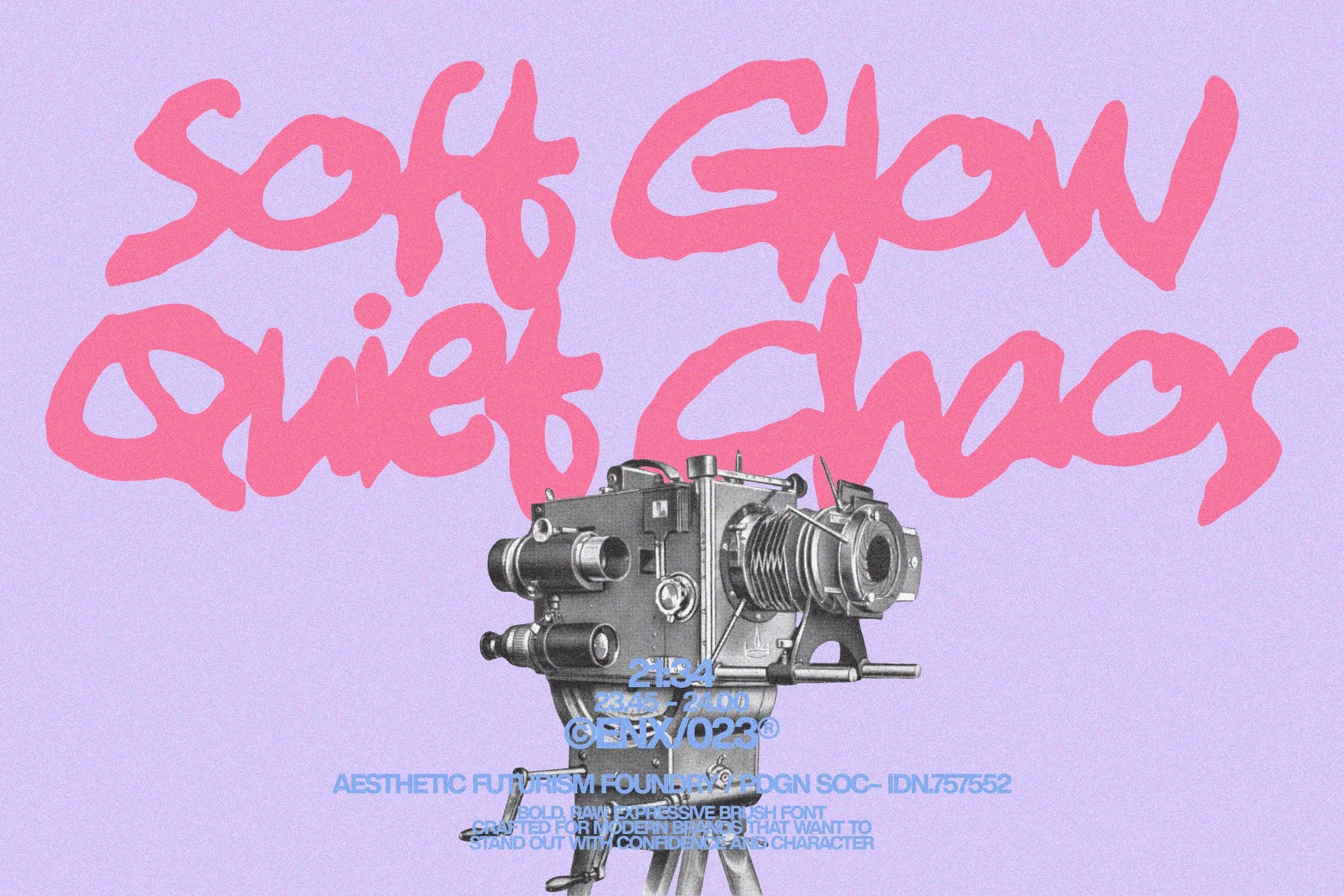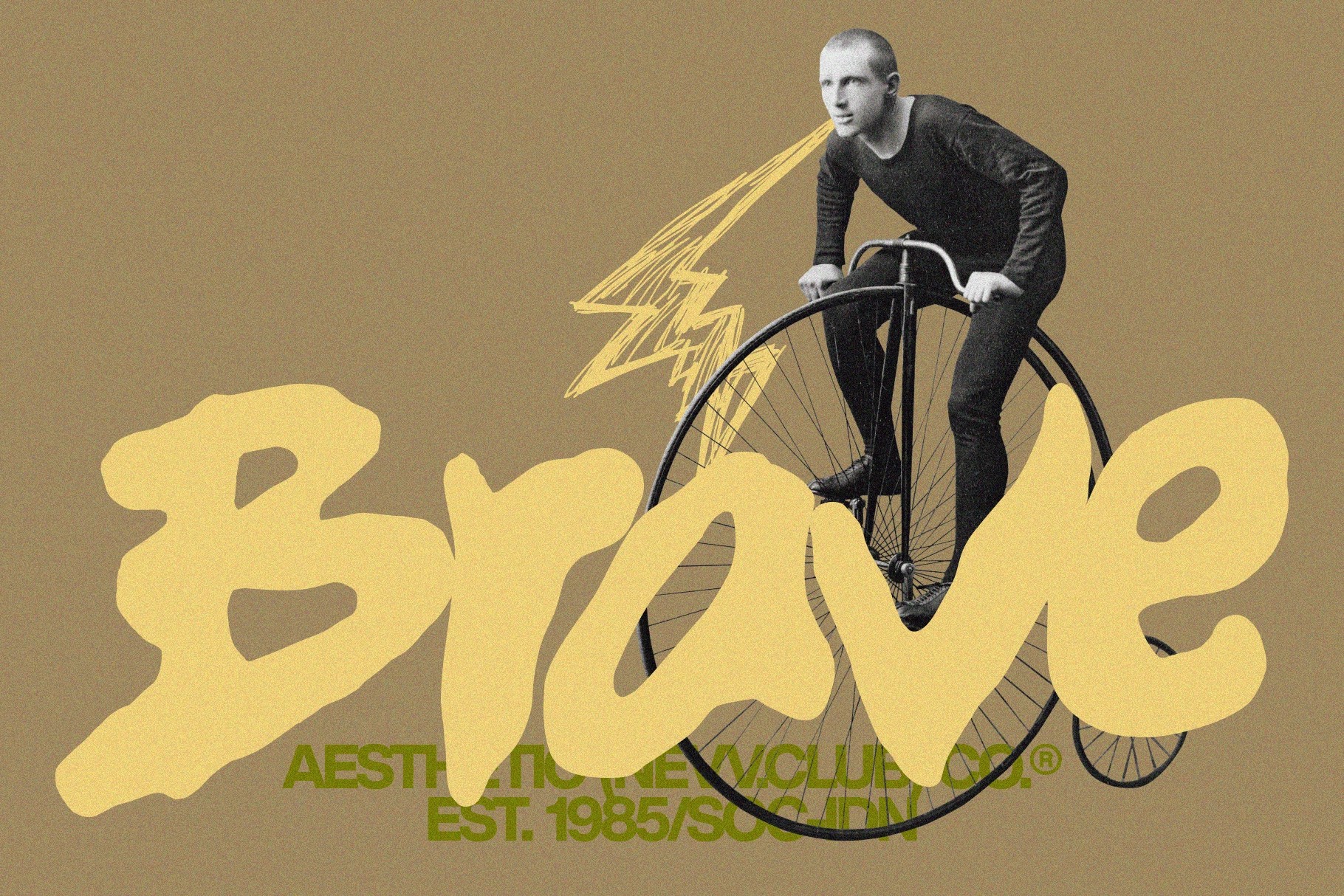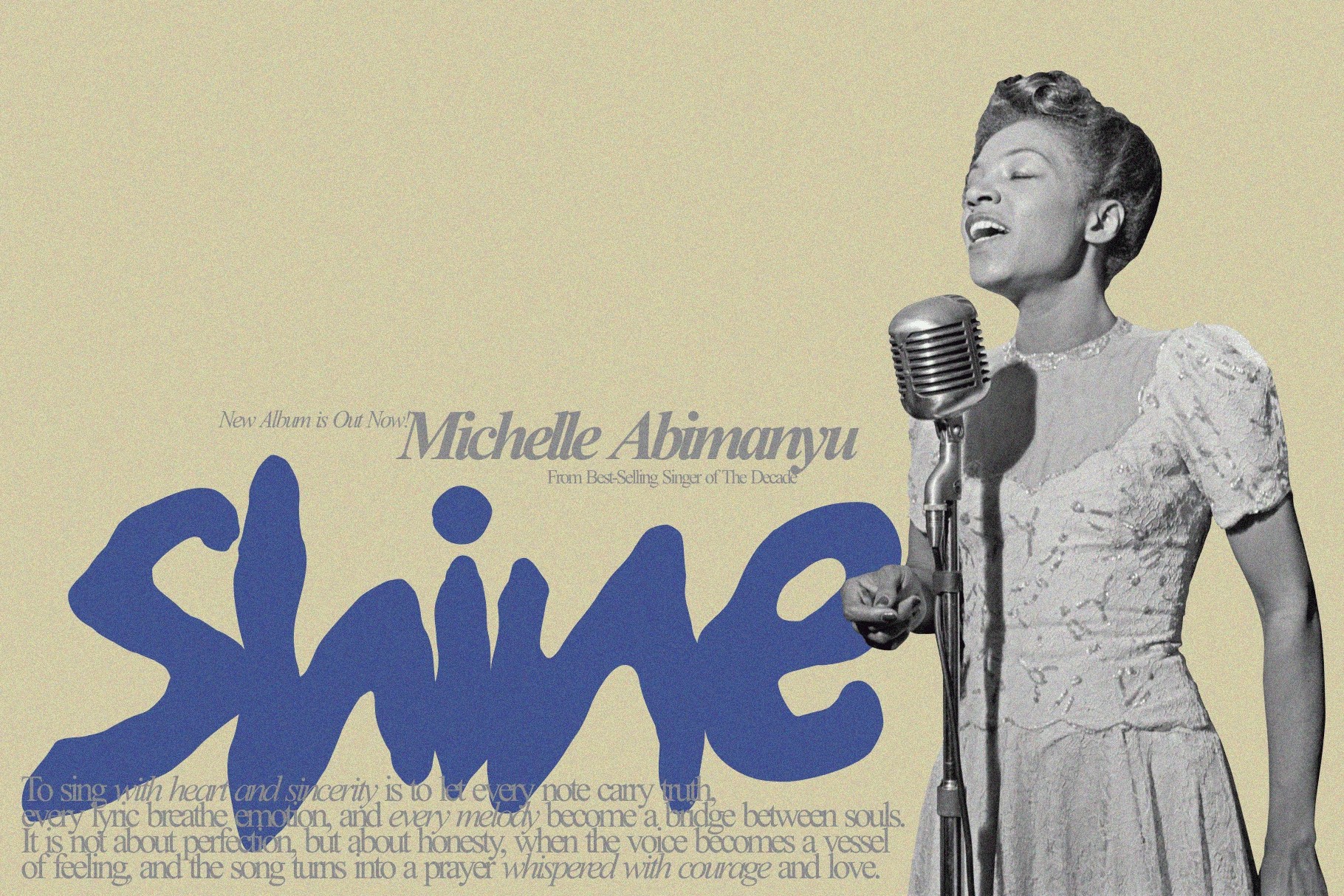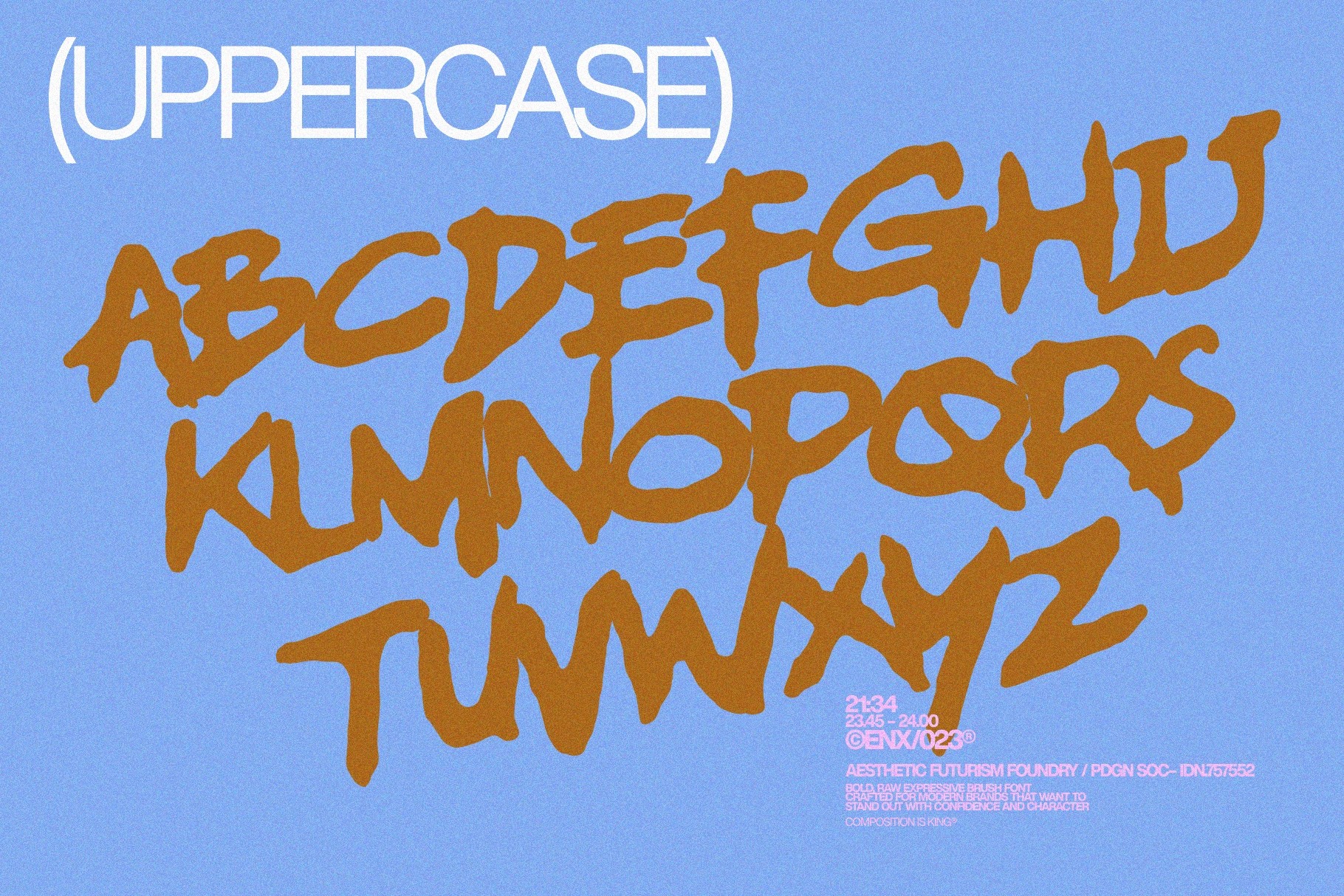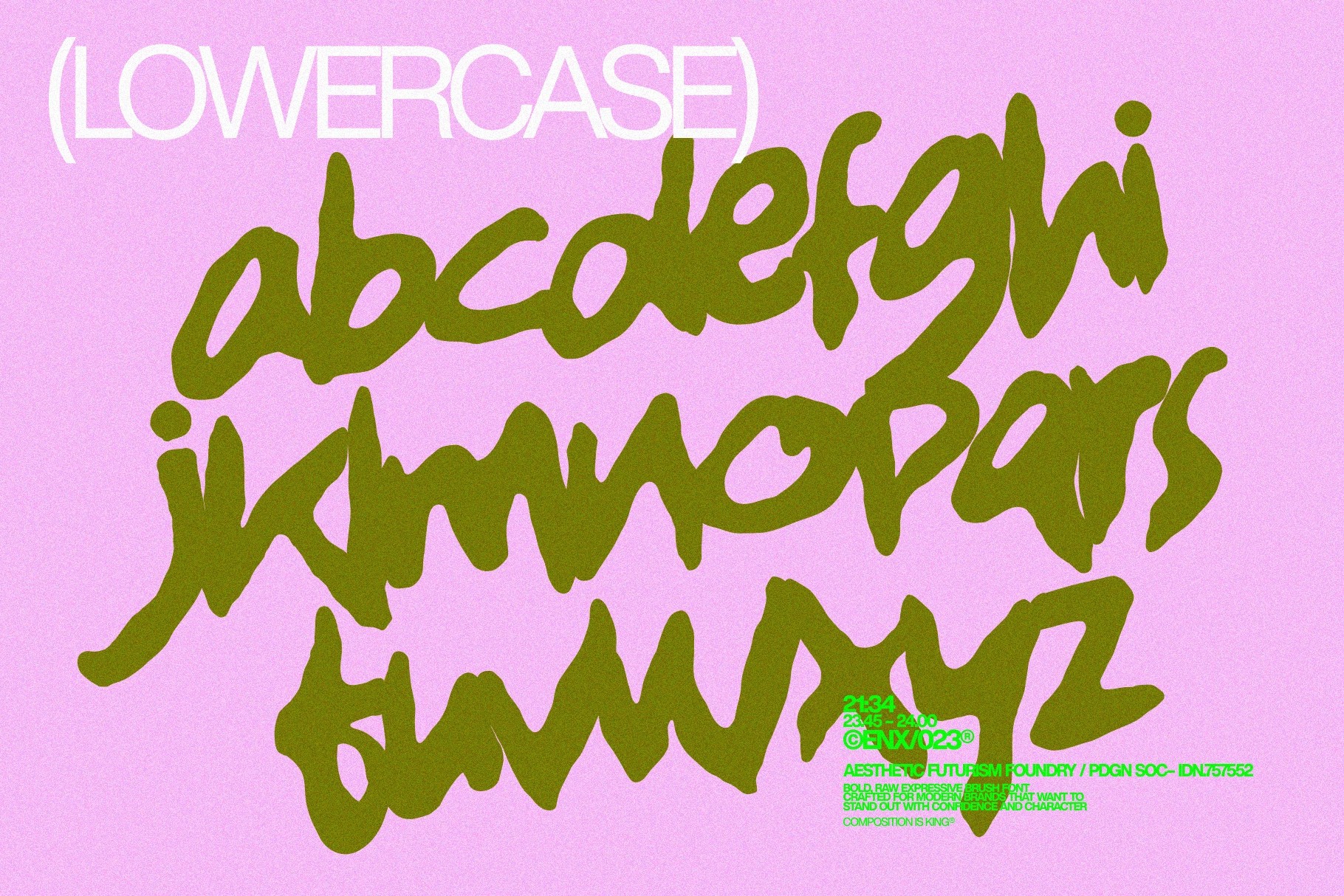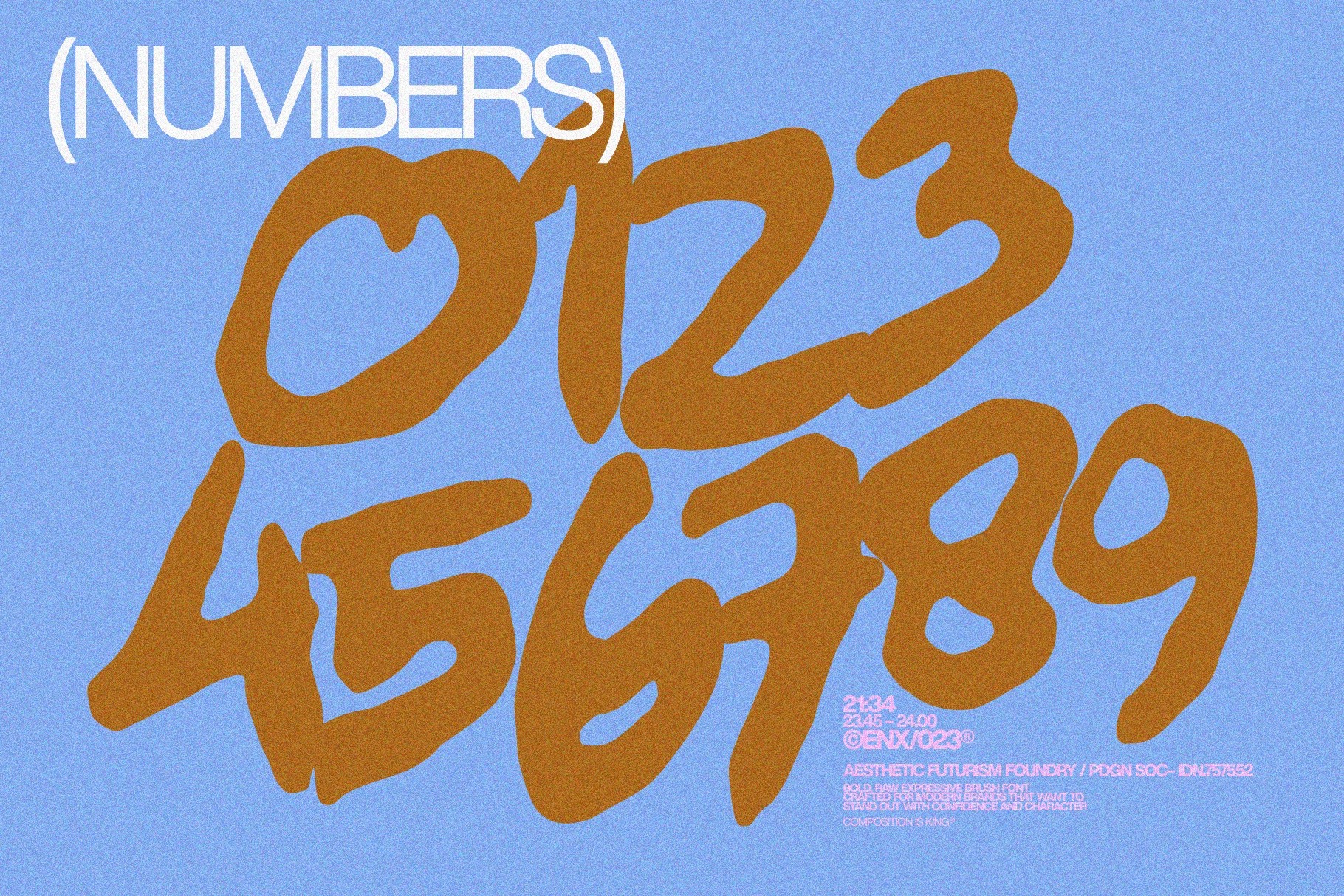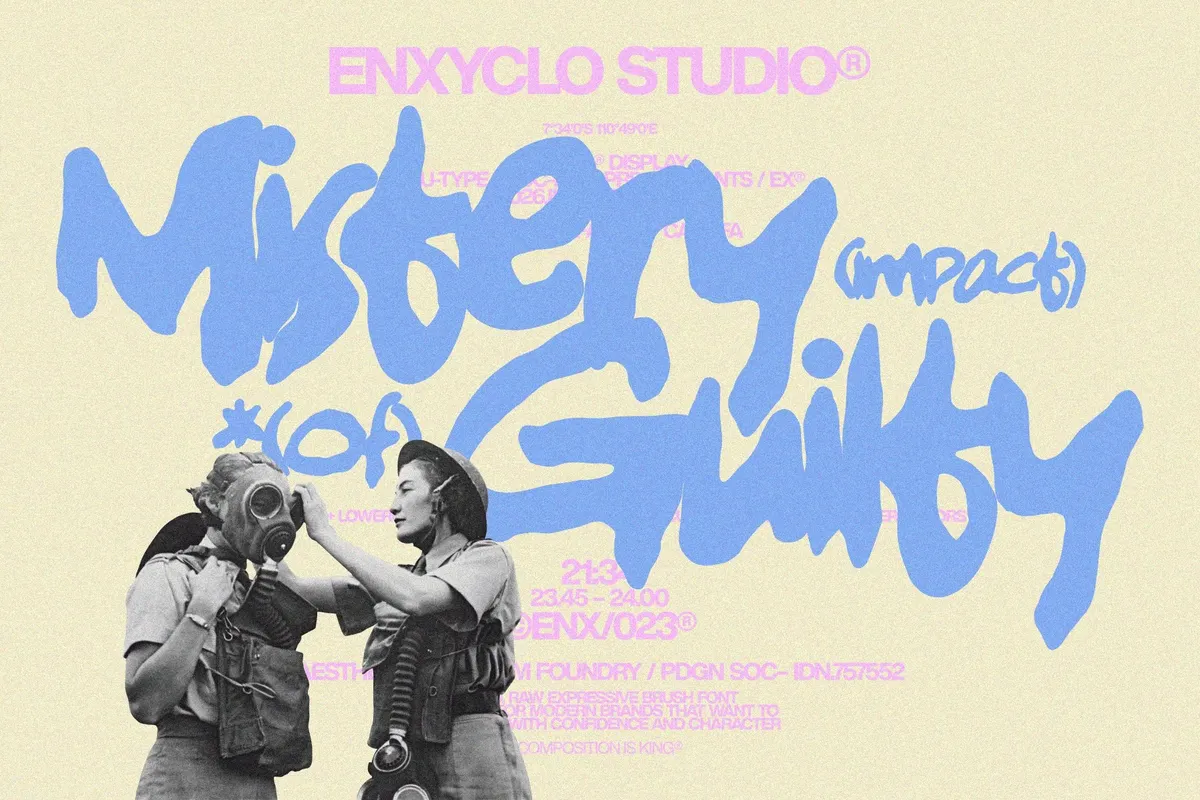
WODIEN — Brush Handdrawn Font
WODIEN — Brush Handdrawn Font is a raw and expressive typeface that embraces the beauty of imperfection and handcrafted design. Built with gritty brush strokes and organic shapes, it delivers an authentic, energetic feel that brings personality and movement to every letter.
Inspired by street art, urban culture, and modern creative studios, this font blends rough textures with a bold contemporary structure. Perfect for posters, branding, and standout headlines, WODIEN adds a strong artistic voice and a distinctive handcrafted edge to any project.
The expressive brush style creates a dynamic rhythm across compositions, making it ideal for designs that need attitude, emotion, and visual impact. Whether used for branding or creative campaigns, it transforms simple text into a powerful statement.
• Uppercase letters
• Lowercase letters
• Punctuation marks
• Symbols
• Currency support